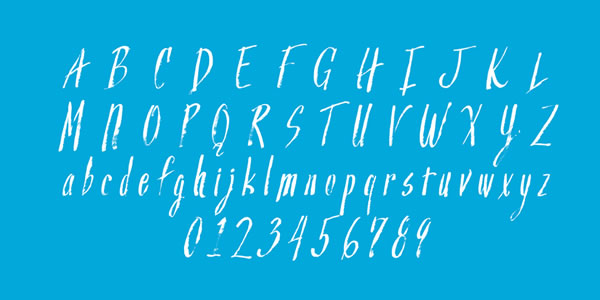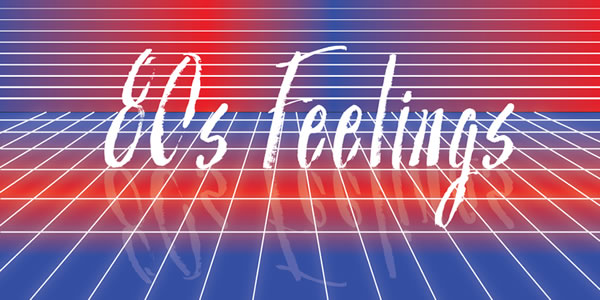
Material Regular Font
db-ku.com - Script & Handwritten -- Who made this mess! Material is quintessential paint brush font fun. A little bit grunge, little bit 80s chic. Material is rated R for adult content and violence, violence to the american alphabet. This font soars just like KITT in Knight Rider. Part virtuoso part New Kid On The Block. Feels like you’re painting those letters on yr’ own self!